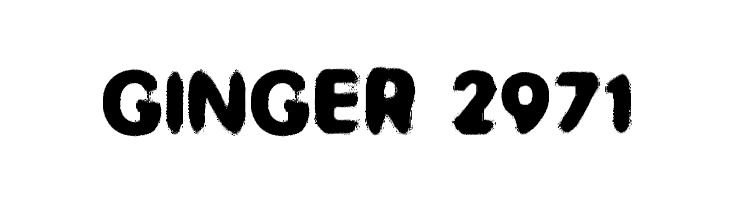
Intricate ornamental designs with swirling and floral motifs for decorative use.
A bold, geometric font with an industrial and modern aesthetic.
A bold, decorative font with intricate loops and swirls, resembling abstract art.
A playful, bold font with rounded characters and a whimsical style.
A bold, condensed font with a modern and impactful style.
A playful, rounded font with a hand-drawn, whimsical style.
A bold, geometric font with a futuristic and dynamic style.
A bold, jagged, italicized font with a rugged, chainsaw-cut appearance.
A modern, geometric font with clean lines and uniform stroke width.